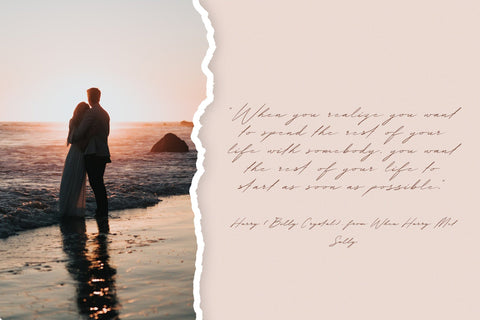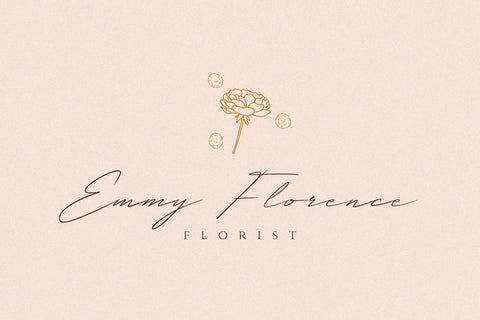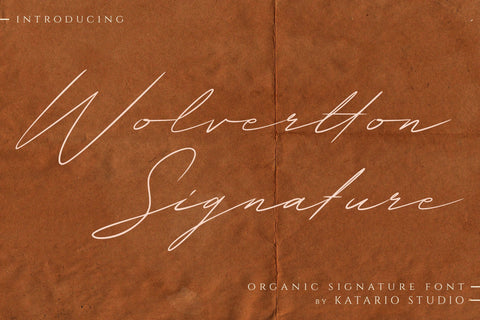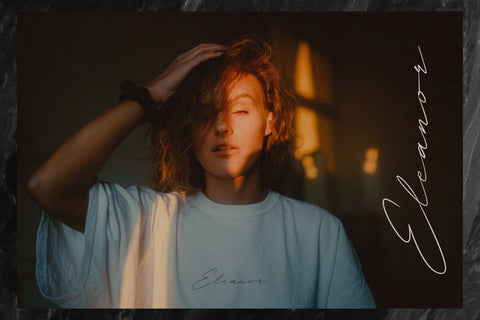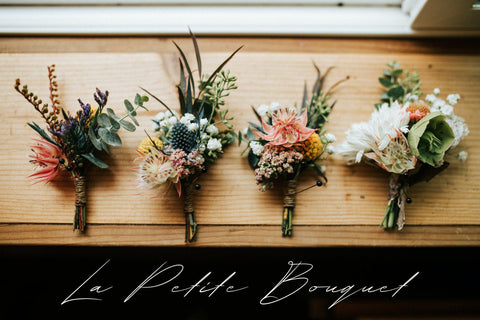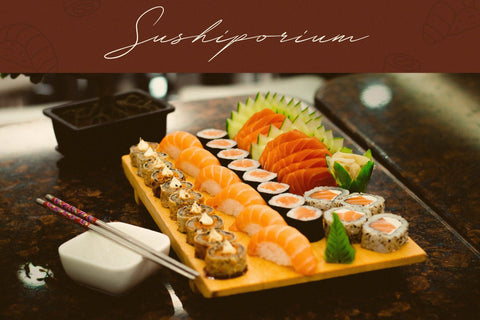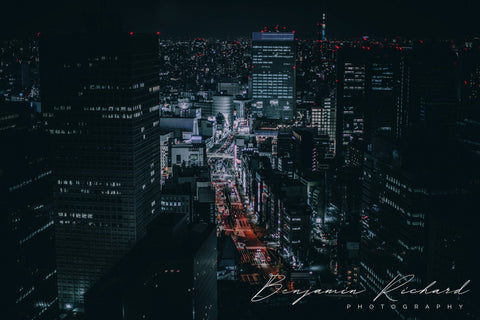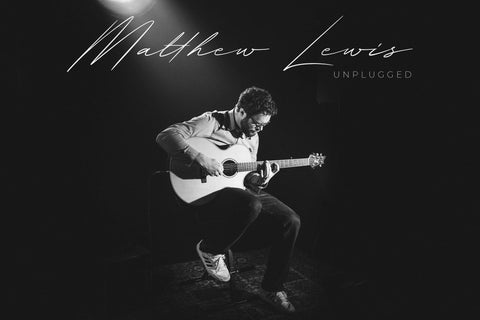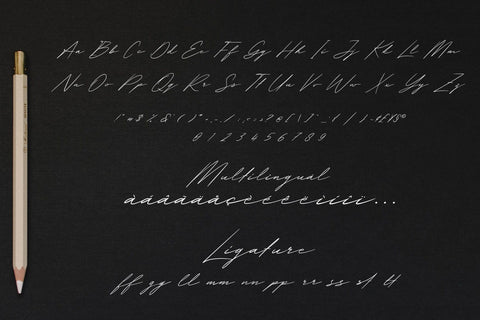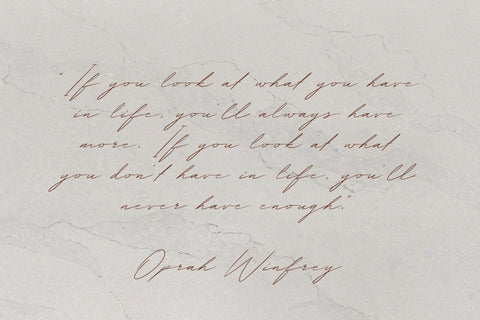
Wolvertton Signature | Authentic Signature Font
Wolvertton Signature is an organic handwritten font with a natural and elegant style. It looks perfect on premium logos, branding projects, wedding invitations, and so much more.